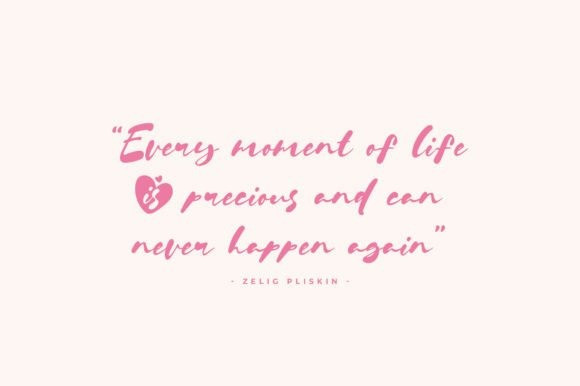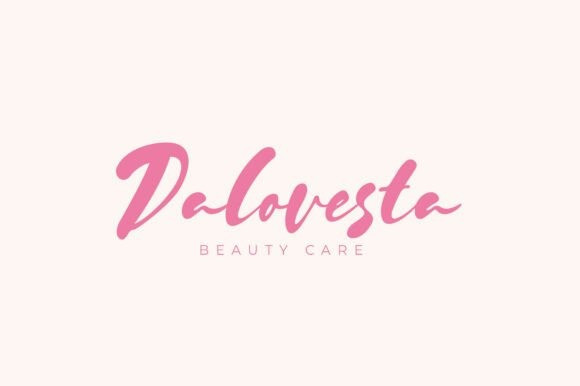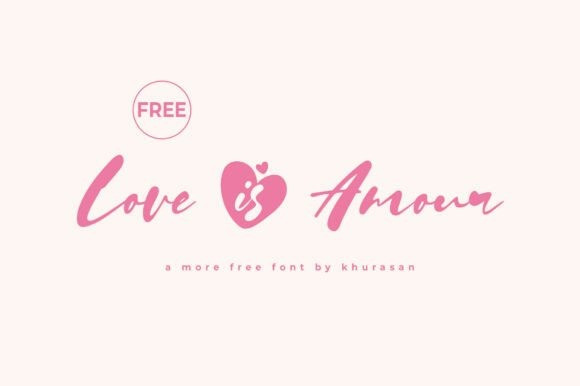
Love Is Amour Font a passionate brush script that exudes romance and artistic flair.This Love is Amour typeface features textured, sweeping strokes that look as if they were painted with a soft brush, giving every word a sense of movement and raw emotion. The Love is Amour font is the perfect choice for projects that need to feel deeply personal and evocative, from Valentine’s Day campaigns to luxury wedding announcements.
The bold, expressive nature of the Love is Amour typeface makes it a stunning focal point for logos and headers. It features beautiful alternates and heart-inspired ligatures that allow you to customize the “romance” level of your typography.
Pair the Love is Amour font with a light, minimalist sans-serif to let the brush textures take center stage while maintaining a modern, polished look.
Whether you are designing a book cover for a romance novel or creating a signature logo for a wedding photographer, this font speaks the